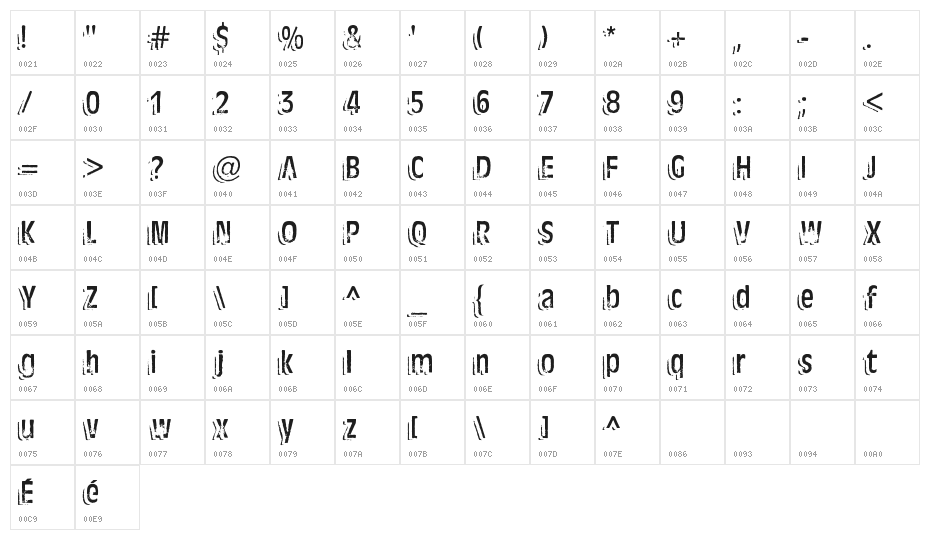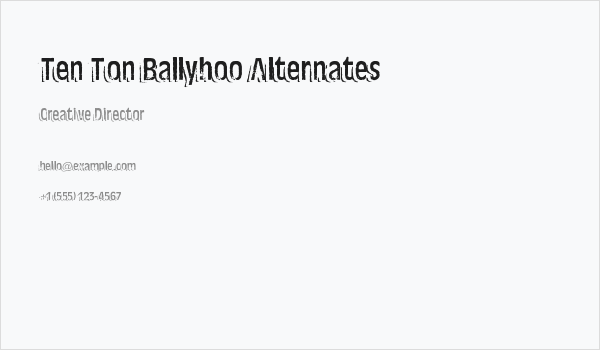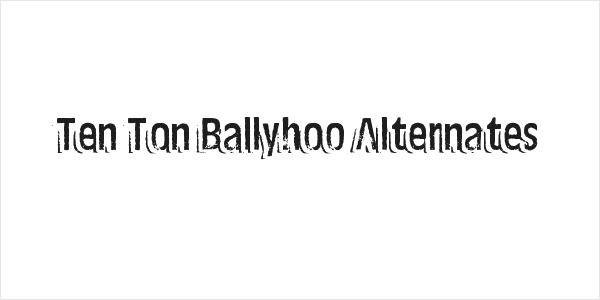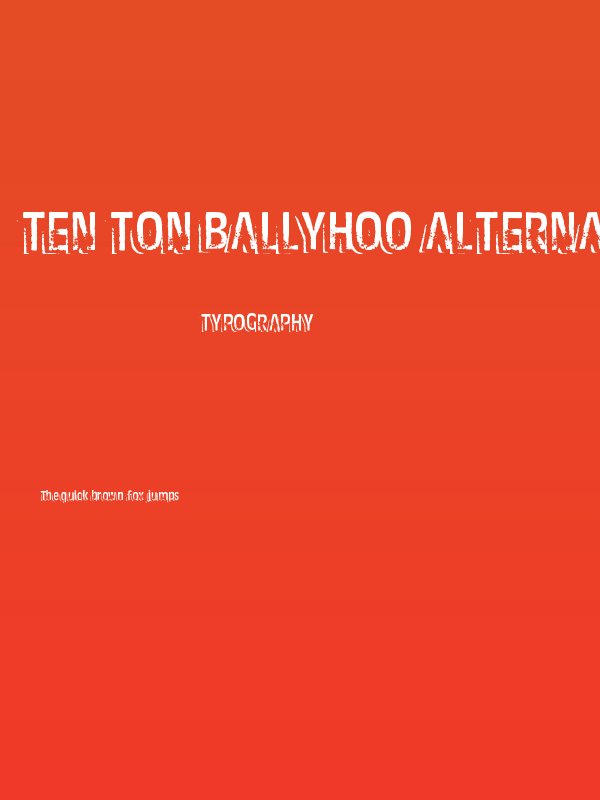
Ten Ton Ballyhoo Alternates Font
Ten Ton Ballyhoo Alternates Description
This font features a bold, distressed style with a grunge texture that gives it a worn, vintage appearance. The uppercase and lowercase letters are consistent in their rugged look, with uneven edges and a slightly eroded effect that adds character. The numbers and special characters follow the same design, ensuring a cohesive look across all glyphs. The font's unique style makes it stand out, ideal for projects that require a bold statement or a retro aesthetic. Its rough texture and bold weight make it suitable for eye-catching designs.
| Proposed Projects | Ideal for posters, album covers, branding, and any design requiring a bold, vintage look. |